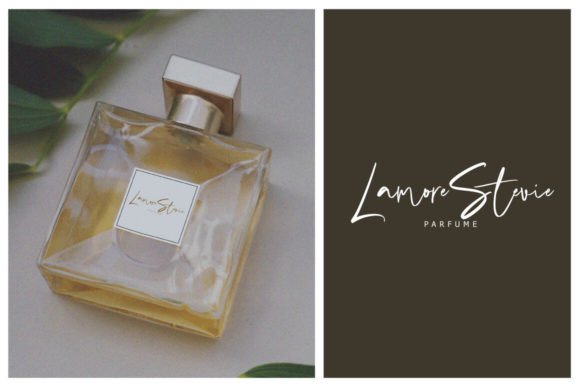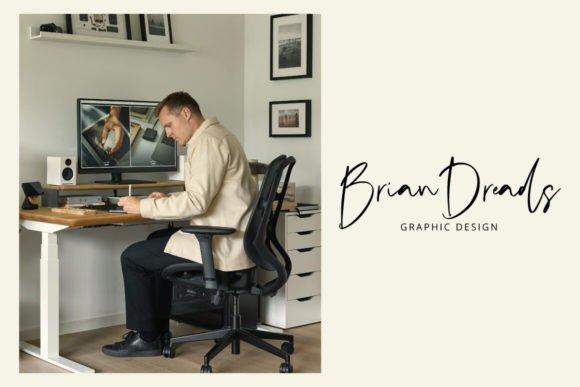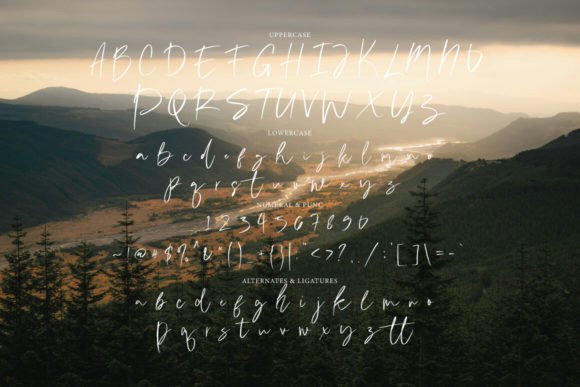
Bright Purple Font
Bright Purple is a stylish font with a sleek, single-line design. Its smooth, elegant curves make it stand out and give a modern touch to any text.